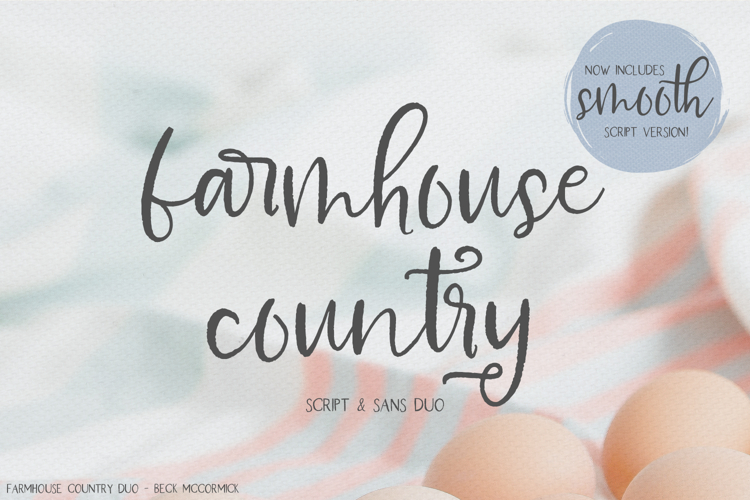
Welcome to Farmhouse Country, a stunning textured font duo sure to be perfect for all of your shabby chic font needs. This duo will look fabulous on your wedding invitation design, your shabby + feminine brand, t-shirts or print design, and more!
Farmhouse Country Script is a robust, easy to read, hand-lettered font with a lovely textured edge — just enough rustic charm! Farmhouse Country features a **full second set** of lowercase letters for added diversity and making your project look like real hand-lettering! As a bonus, Farmhouse Country Script includes a totally smooth version, added in July 2021, making this a great Cricut font for all of your farmhouse chic designs. In addition, there are also some super sweet ligatures programmed in:
- ar, br, dr, er, fr, gr, ir, or, pr, th, tr, tt, and ur
Pair Farmhouse Country with its all caps farmhand, Farmhouse Country Sans — it’s a mini font! It includes its all caps characters (programmed as both uppercase + lowercase letters for your convenience), and numbers. It also includes Western European language support.